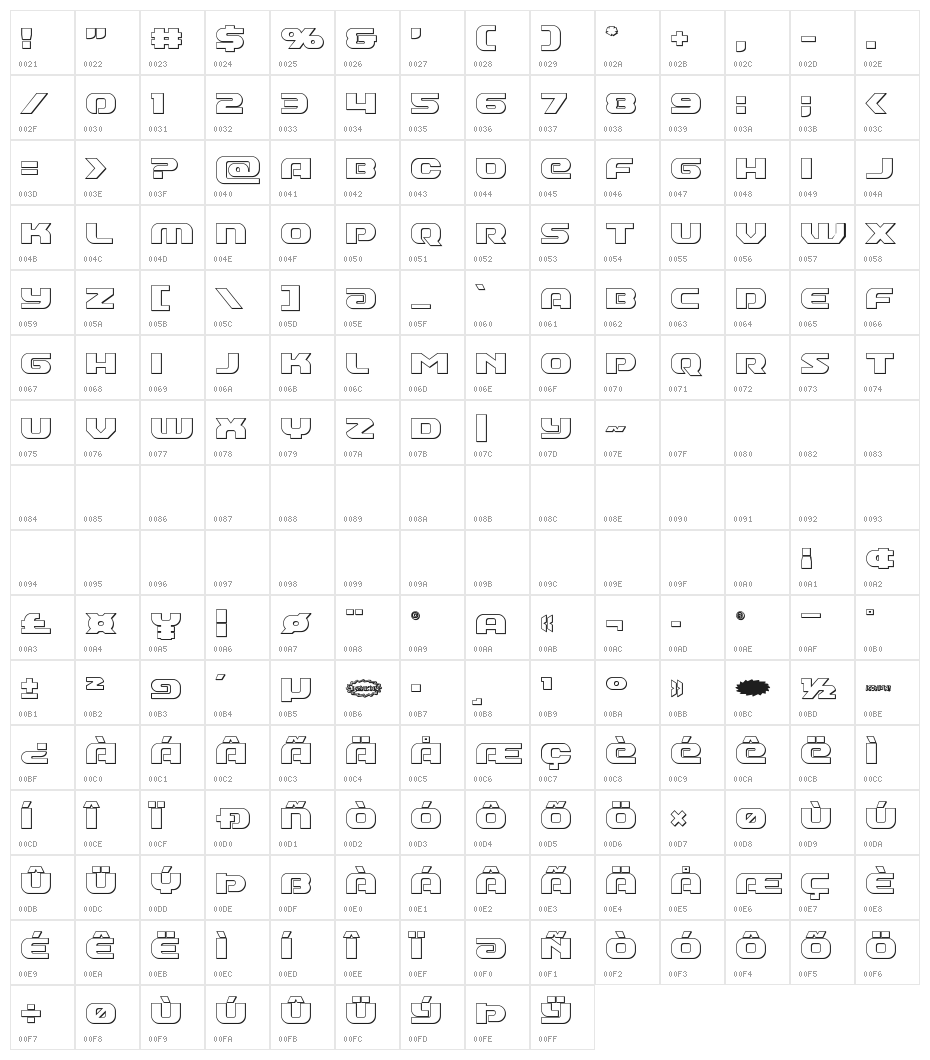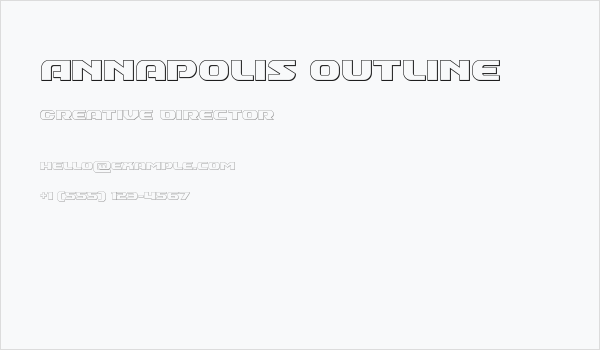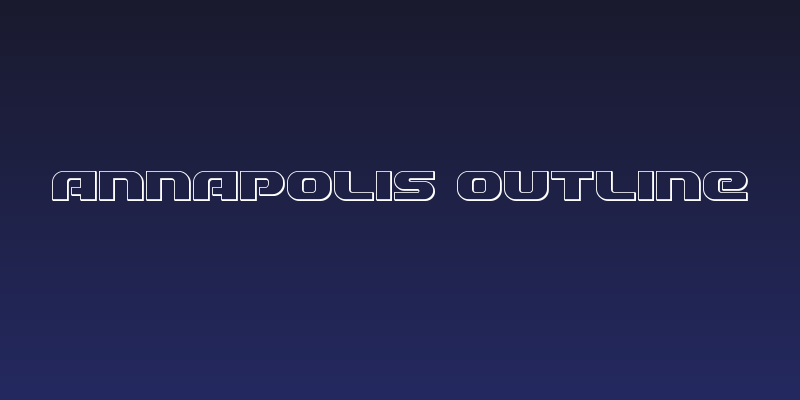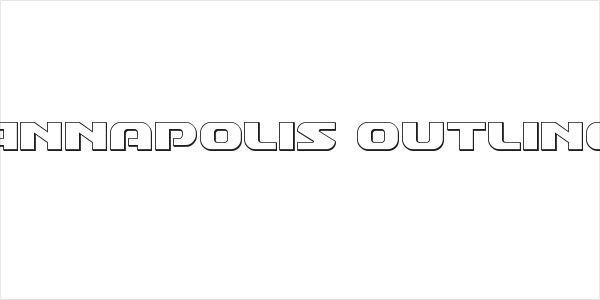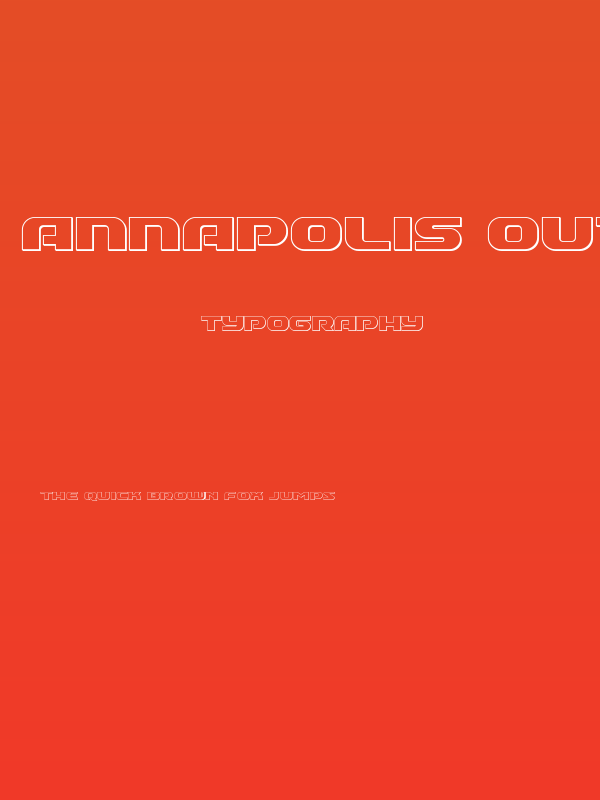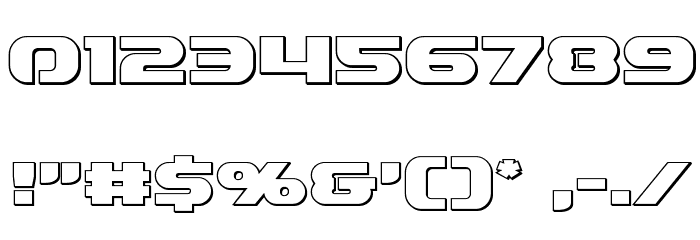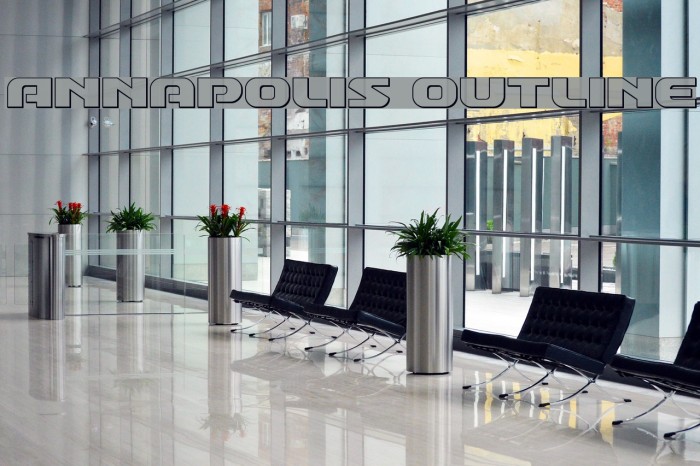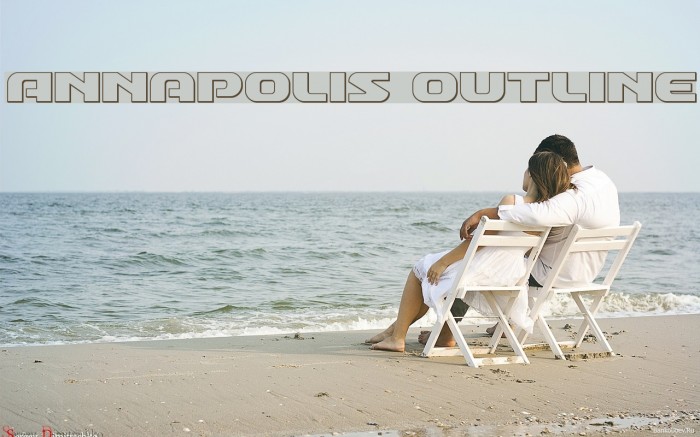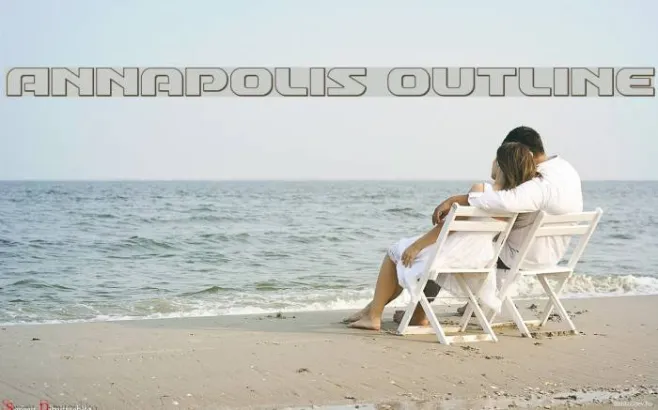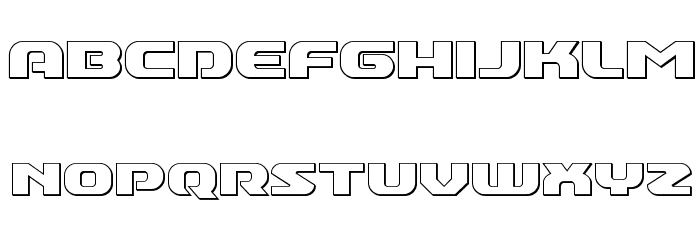
Annapolis Outline Font
Annapolis Outline Description
This font features a bold, geometric outline style that is both modern and eye-catching. The characters are constructed with clean, sharp lines and a consistent thickness, creating a uniform appearance across all letters and numbers. The uppercase and lowercase letters maintain a similar structure, enhancing readability while providing a distinct, stylish look. The numerals and special characters are designed to match the overall aesthetic, making this font versatile for various design needs. Its outline nature gives it a unique presence, ideal for projects that require a standout typeface.
| Proposed Projects | Ideal for headlines, posters, branding, and any design project that requires a striking, modern typeface. |